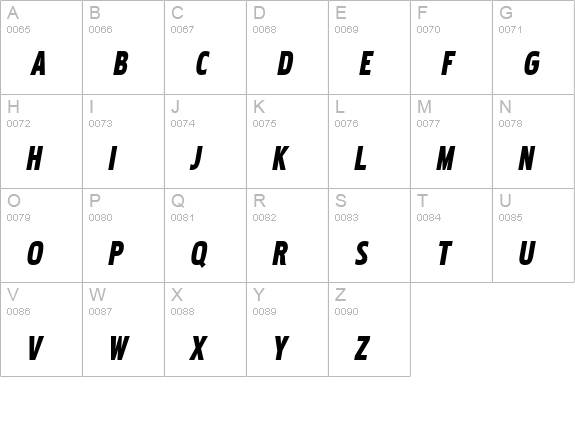
Pakenham Cnd Blk Italic is a distinctive, italic variant in the Pakenham typeface family \xE2\x80\x94 well suited to design and typography projects.
Pakenham Cnd Blk Italic font is a sleek and modern typeface that exudes sophistication and versatility. Its bold and italic design adds a touch of elegance to any project, making it perfect for both headers and body text. The strong, confident lines of this font make it stand out while maintaining a sense of professionalism. And the best part? Pakenham Cnd Blk Italic font is available for free download at FontsMarket.com. This means you can easily enhance your designs with this stylish typeface without breaking the bank. Whether you're working on a branding project, a website design, or any other creative endeavor, Pakenham Cnd Blk Italic font is sure to elevate your work to the next level.